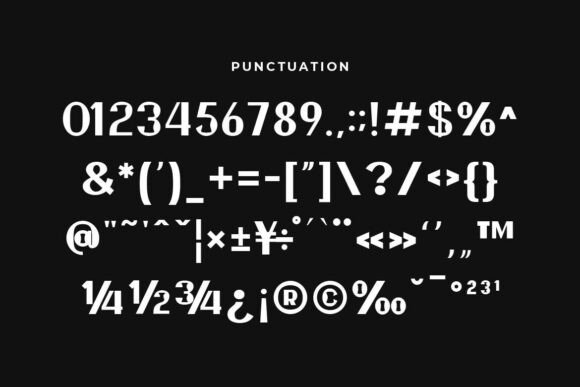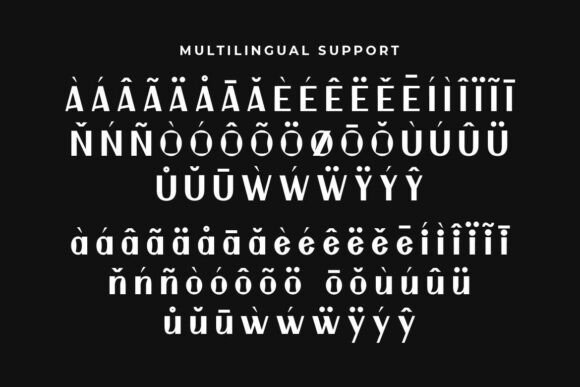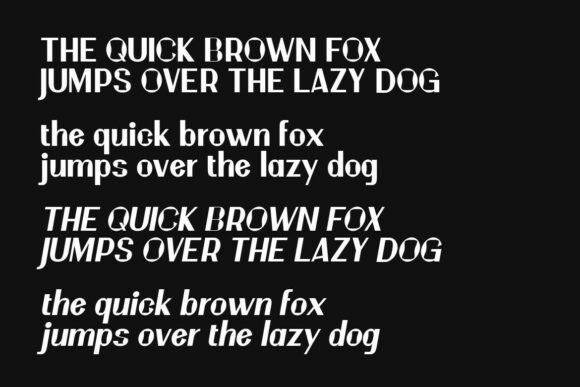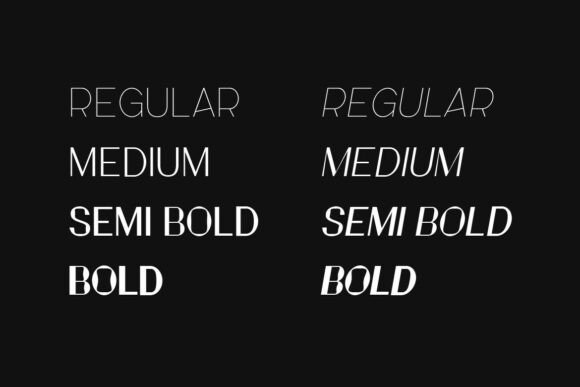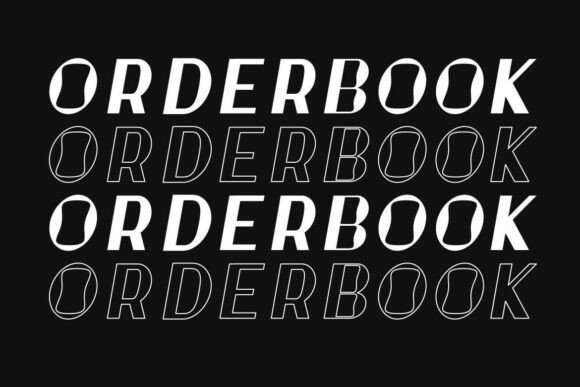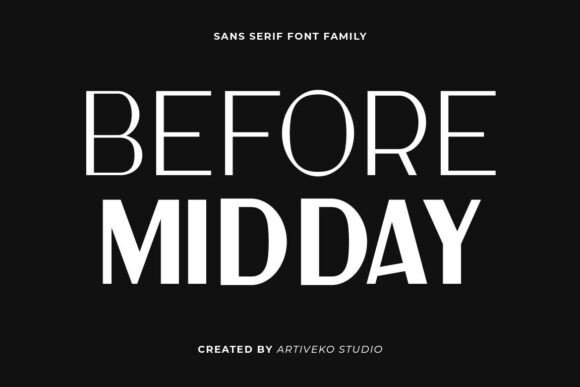
The Perfect Blend of Elegance and Versatility: Before Midday Font
Have you ever stared at a blank screen, waiting for the perfect font to bring your design to life? You’re not alone. For designers, finding that elusive combination of style and substance can be a challenge. But what if you had a font that effortlessly balanced sophistication and versatility, making it the ultimate go-to for a wide range of projects?
Enter the Before Midday Font, a contemporary sans-serif family that’s as at home in corporate identities as it is in editorial layouts and tech-focused branding. With its clean and balanced look, the Before Midday Font is a valuable asset for designers, offering exceptional readability across both print and digital platforms.
Whether you’re creating a mobile app interface, architectural signage, or anything in between, the Before Midday Font is a reliable choice that provides a polished and up-to-the-minute feel to any project.
Before Midday Font Key Features
- Font Family: Before Midday is a sans-serif font family.
- Unique Characteristics: Before Midday features a clean, modern design with subtle rounded edges and a high x-height, making it suitable for a variety of applications, including digital and print media.
- Font Weights: Available in multiple weights, including Light, Regular, Bold, and Extra Bold, to cater to different design needs.
Before Midday Font Review
As a designer, I’m always on the lookout for unique and stylish fonts to add a touch of personality to my projects. Before Midday Font is a great example of a well-designed font that has both charm and versatility. ✨
Here are some of the things that I love about Before Midday Font:
- Unique character set: Before Midday Font has a distinct personality that’s perfect for projects that require a vintage or retro feel.
- High-quality vector graphics: The font is well-designed and scalable, making it perfect for use in a variety of contexts.
- Wide character set: Before Midday Font includes a wide range of characters, including numerals, punctuation, and special characters.
- Not ideal for body text: Before Midday Font is a display font, and it’s not suitable for large blocks of body text.
- May require manual kerning: Depending on the context, you may need to manually adjust the spacing between characters to get the desired look.
Overall, I think Before Midday Font is a great choice for designers who want to add a touch of personality to their projects. While it may not be suitable for every context, it’s a versatile and stylish font that’s sure to impress. ⚠️
Tips for Getting the Most Out of Before Midday Font
For optimal results, use the Before Midday Font in combination with a clean and minimalist design aesthetic. You can also experiment with different font sizes and styles to create a visually appealing effect.
The Before Midday Font is perfect for creating a modern and sophisticated look in a variety of design projects, including: